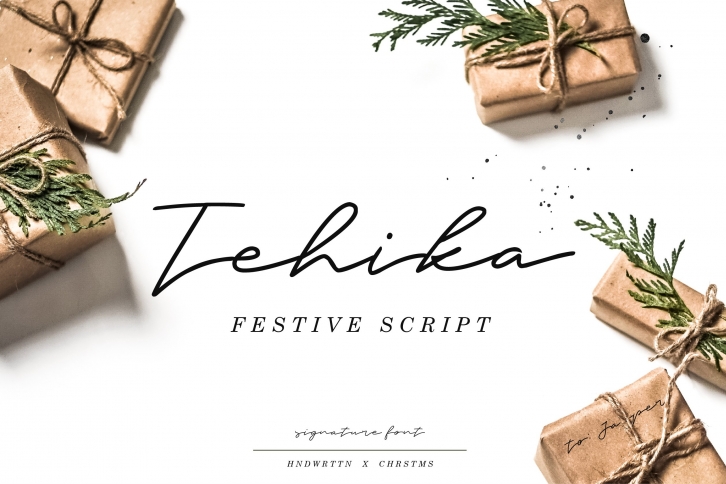
ABOUT TEHIKA SCRIPT
Tehika is a festive hand drawn script perfect for all of your holiday designs! If you're after that "signature style" font, Tehika delivers just that. Throw it on a Christmas card, a business logo, or a party invite and let this typeface do all the work for you.